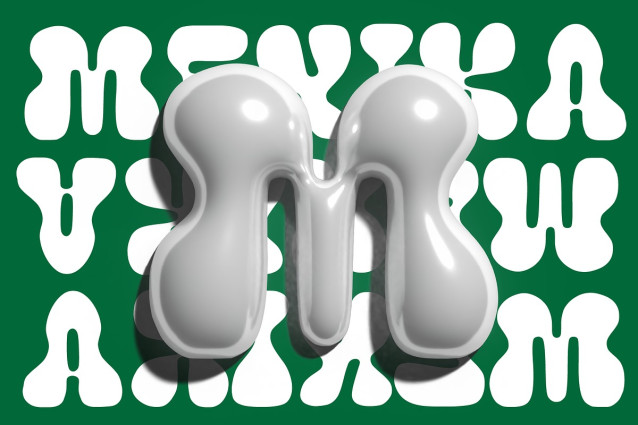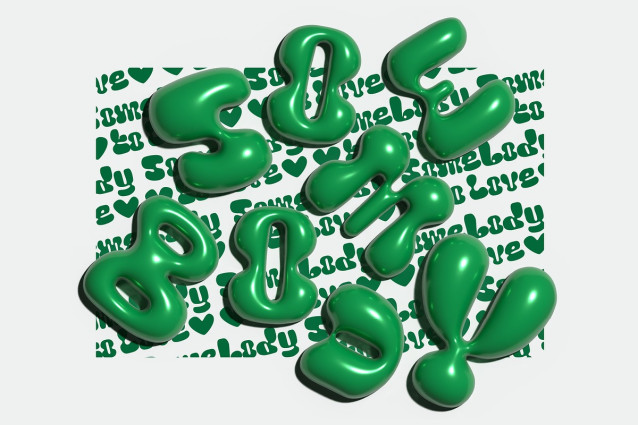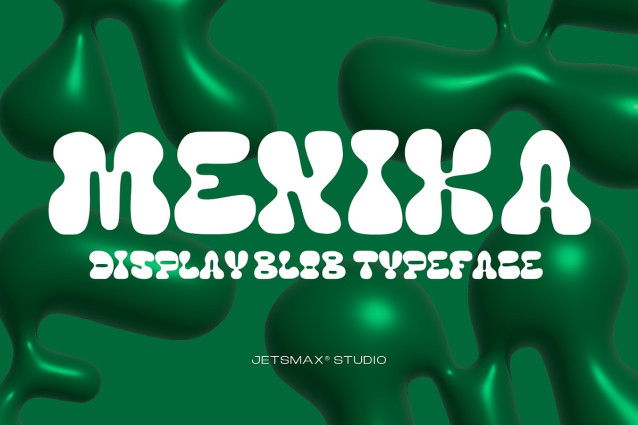
Menika Display Font
Menika Display Font is a unique typeface designed with a single weight, showcasing a playful and bubbly aesthetic inspired by blog-style typography. The characters in Menika are likely to have soft, rounded edges, resembling bubbles, imparting a friendly and approachable feel.